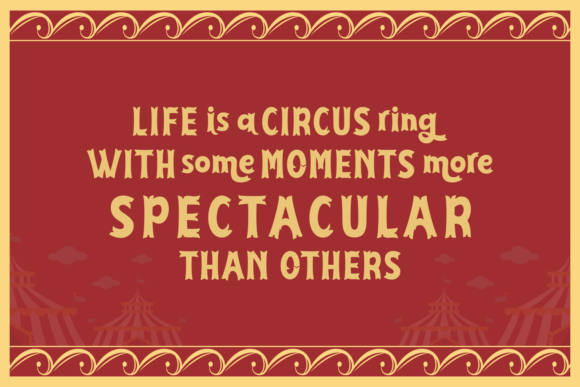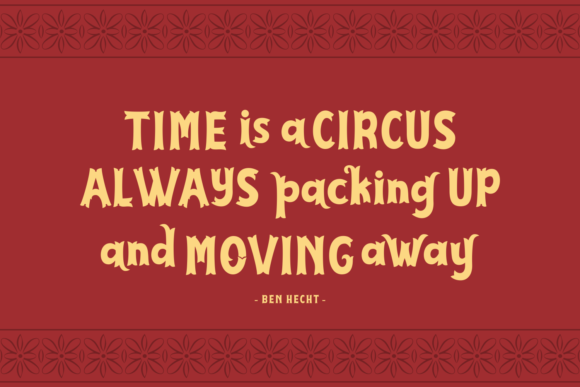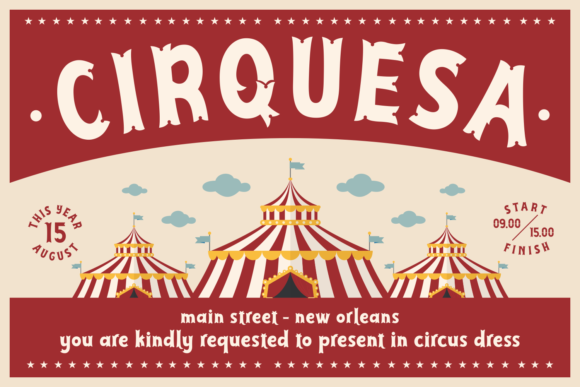
Cirquesa Font: The Perfect Addition to Your Circus-Themed Projects
Are you a designer or crafter looking for a unique and eye-catching font to add to your circus-themed projects? Look no further than Cirquesa Font! This beautiful display font is perfect for use in a variety of applications, from party invitations to posters, and is sure to add a touch of excitement and energy to your designs.
What is Cirquesa Font?
Cirquesa Font is a stunning display font that is inspired by the classic circus posters of the past. With its bold lines, playful curves, and whimsical flair, this font is sure to evoke the sense of wonder and excitement that comes with the circus. Whether you’re designing a party invitation, a poster, or a social media graphic, Cirquesa Font is the perfect choice.
Key Features of Cirquesa Font
So what makes Cirquesa Font so special? Here are just a few of its key features:
- Beautifully crafted letters: Each letter in Cirquesa Font has been carefully crafted to ensure that it is both visually appealing and easy to read.
- Perfect for circus-themed projects: The font’s circus-inspired design makes it perfect for use in a variety of circus-themed projects, from party invitations to posters.
- Easy to read: Despite its bold and playful design, Cirquesa Font is easy to read, making it perfect for use in a variety of applications.
- Versatile: Cirquesa Font can be used in a variety of contexts, from digital designs to print materials.
Uses for Cirquesa Font
So what can you use Cirquesa Font for? The possibilities are endless! Here are just a few ideas to get you started:
- Party invitations: Create eye-catching party invitations that are sure to impress your guests.
- Posters: Design stunning posters that showcase the beauty and excitement of the circus.
- Social media graphics: Add a touch of whimsy and fun to your social media graphics with Cirquesa Font.
- Signs: Create eye-catching signs that are sure to grab attention.
Why Choose Cirquesa Font?
So why should you choose Cirquesa Font for your next project? Here are just a few reasons:
- Unique design: Cirquesa Font has a unique and eye-catching design that is sure to set your project apart.
- High-quality: Cirquesa Font is a high-quality font that is sure to impress.
Tips for Using Cirquesa Font
Here are a few tips for using Cirquesa Font in your next project:
- Use it sparingly: Because Cirquesa Font is a bold and eye-catching font, it’s best to use it sparingly to avoid overwhelming your design.
- Pair it with other fonts: Consider pairing Cirquesa Font with other fonts to create a unique and visually appealing design.
- Experiment with colors: Don’t be afraid to experiment with different colors to find the perfect combination for your design.
In conclusion, Cirquesa Font is a beautiful and versatile font that is perfect for use in a variety of circus-themed projects. With its unique design, ease of use, and high-quality construction, it’s sure to be a valuable addition to your font collection. So why wait? Download Cirquesa Font today and start creating stunning designs that are sure to impress!